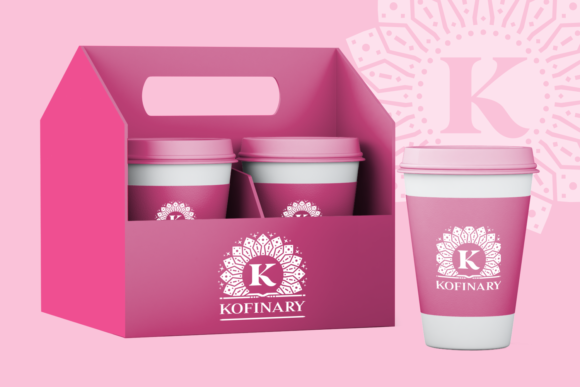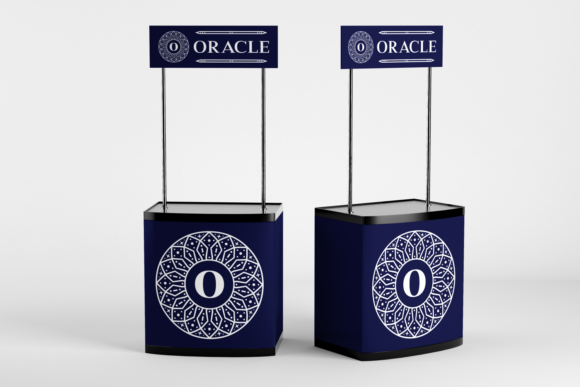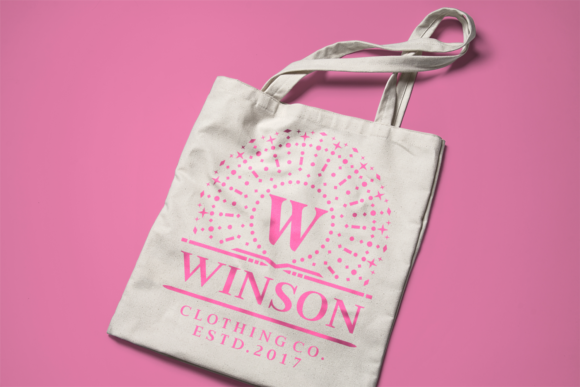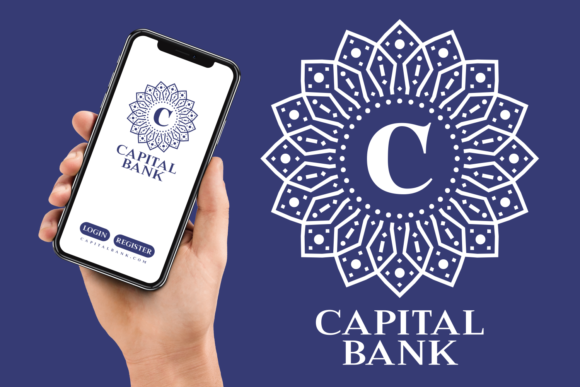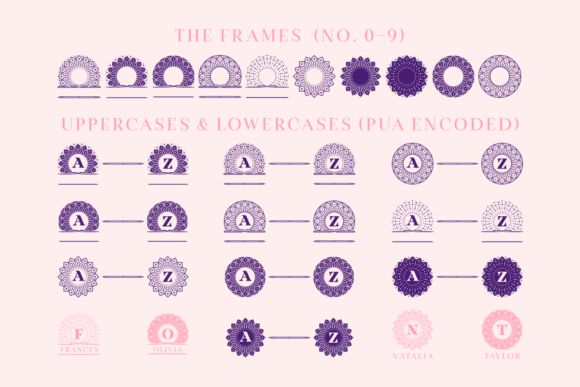
Gedacht Monogram Font: Elevate Your Designs with a Unique Mandala Theme
Are you a designer or crafter looking for a font that can add a touch of elegance and charm to your projects? Look no further than the Gedacht Monogram Font, a beautiful decorative font with a stunning mandala theme. In this article, we’ll explore the features and benefits of this unique font and how it can elevate your designs to the next level.
What is Gedacht Monogram Font?
Gedacht Monogram Font is a decorative font designed with a mandala theme, perfect for creating stunning designs that require a charming appearance. The font features intricate and detailed designs, making it ideal for use in various design projects, such as logos, branding, packaging, and more.
Key Features of Gedacht Monogram Font
- Unique Mandala Theme: The font features a beautiful mandala theme, which adds an exotic and elegant touch to your designs.
- PUA Encoded: Gedacht Monogram Font is PUA encoded, which means you can access all the glyphs and swashes with ease, making it simple to use and customize.
- Decorative and Charming: The font has a decorative and charming appearance, perfect for designs that require a touch of elegance and sophistication.
Benefits of Using Gedacht Monogram Font
Using Gedacht Monogram Font in your designs offers several benefits, including:
- Instant Elegance: The font adds an instant touch of elegance and sophistication to your designs, making them stand out from the crowd.
- Versatility: Gedacht Monogram Font can be used in various design projects, from logos and branding to packaging and more.
- Easy to Use: The font is PUA encoded, making it easy to access and use all the glyphs and swashes.
Design Ideas Using Gedacht Monogram Font
Gedacht Monogram Font can be used in a variety of design projects, including:
- Logos and Branding: Use the font to create stunning logos and branding materials that exude elegance and sophistication.
- Packaging Design: Add a touch of charm and elegance to your packaging designs with Gedacht Monogram Font.
- Stationery and Invitations: Use the font to create beautiful stationery and invitations that make a lasting impression.
In conclusion, Gedacht Monogram Font is a unique and beautiful decorative font with a stunning mandala theme. Its PUA encoding makes it easy to use and customize, and its charming appearance makes it perfect for designs that require an elegant touch. Whether you’re a designer or crafter, Gedacht Monogram Font is a great addition to your font library.